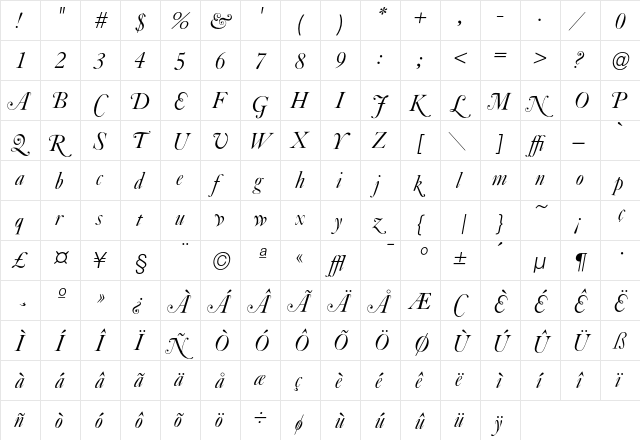
CaslonC437 ItalicSmallCaps
Design Context for CaslonC437 Typeface
CaslonC437 is a composed and adaptable typeface that performs quietly and consistently across a wide range of design contexts. The dynamic lean of this cut emphasises speed and emphasis in any layout.
Pro Tip: Use CaslonC437 for emphasis, pull quotes, and subheadings where its slanted energy can add rhythm to the layout.